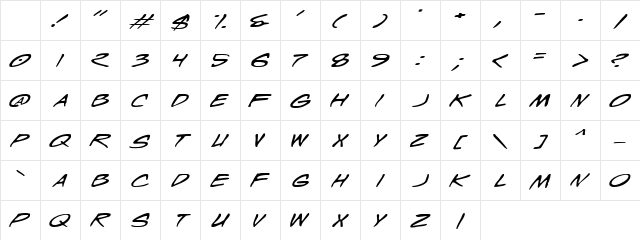
Wyld Stallyns Extended Extended
Style: Extended
Wyld Stallyns Extended Family
Design Context for Wyld Stallyns Extended
Wyld Stallyns Extended is a composed and adaptable typeface that performs quietly and consistently across a wide range of design contexts.
Pro Tip: Use Wyld Stallyns Extended in both headline and body roles to test its range before committing to a single application.